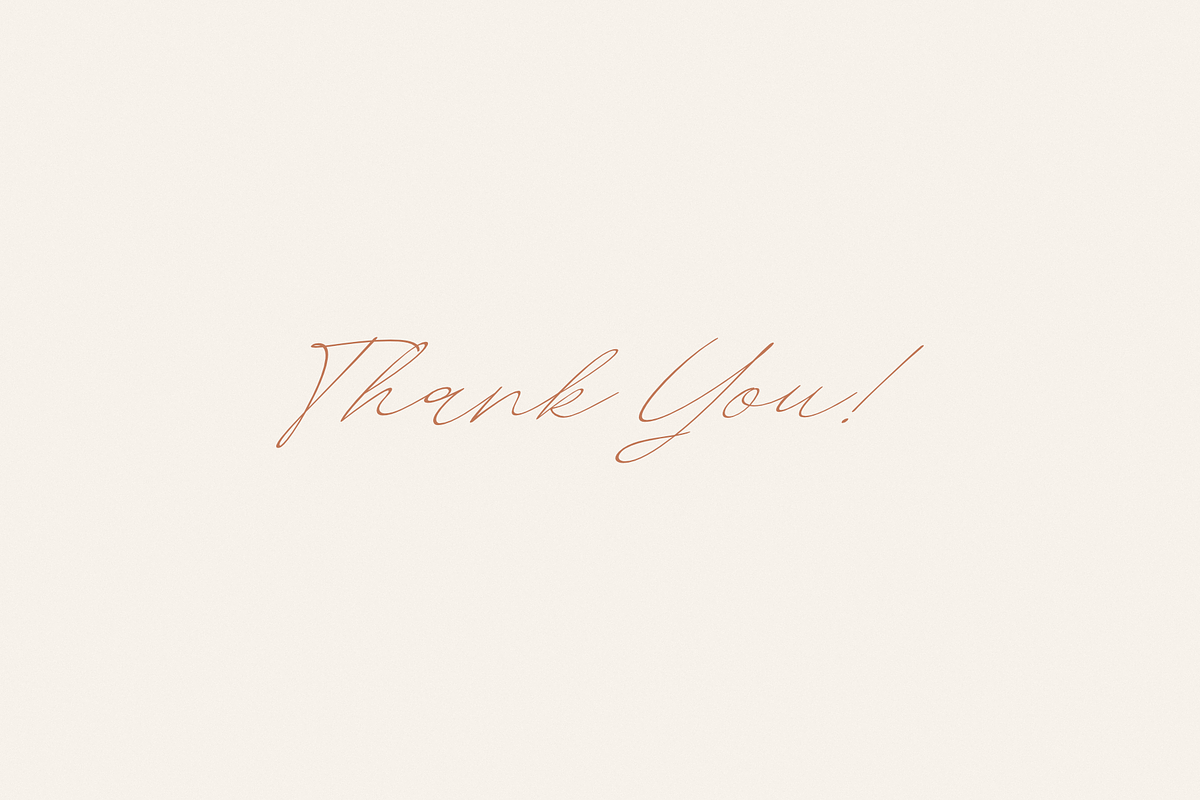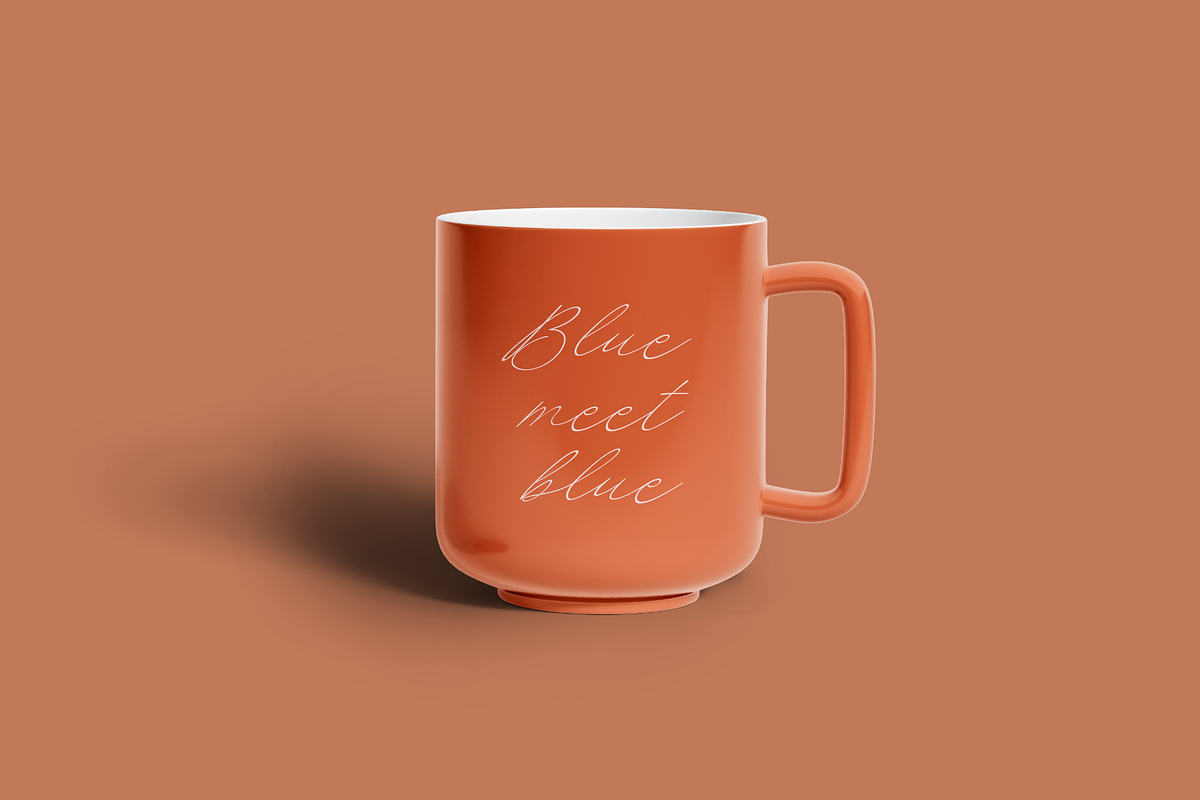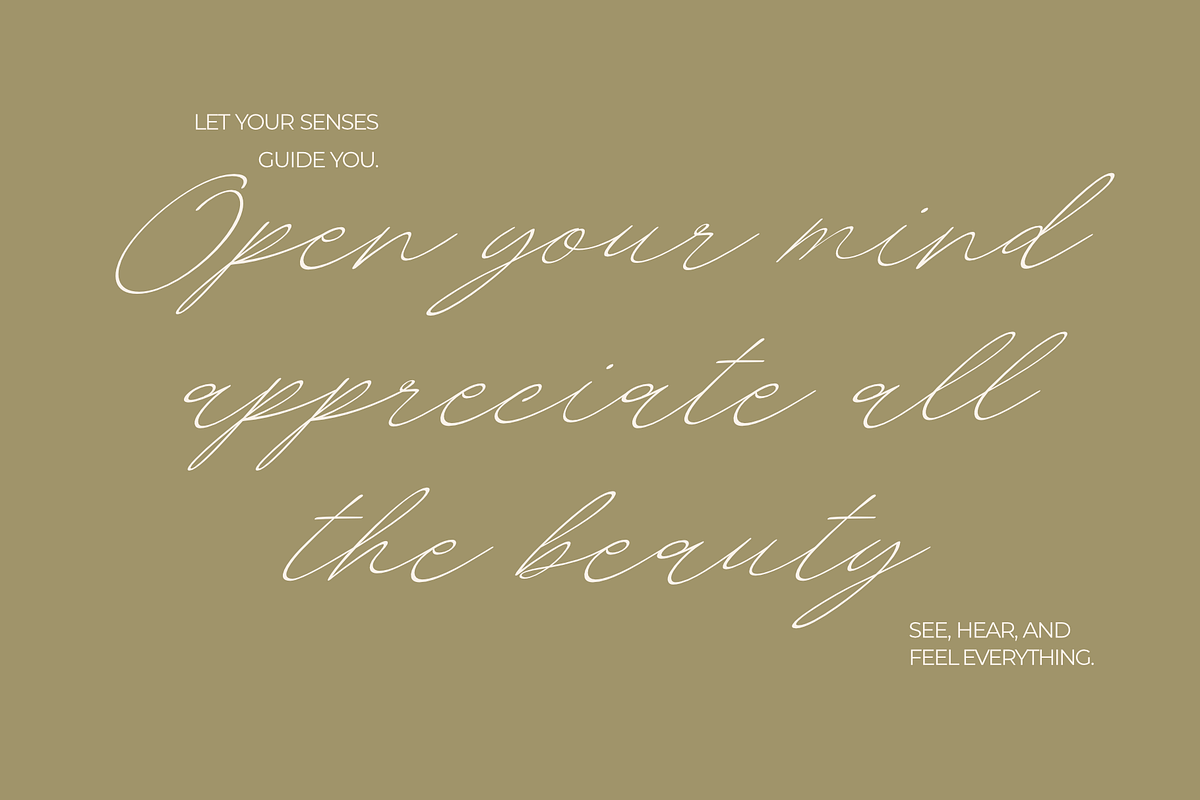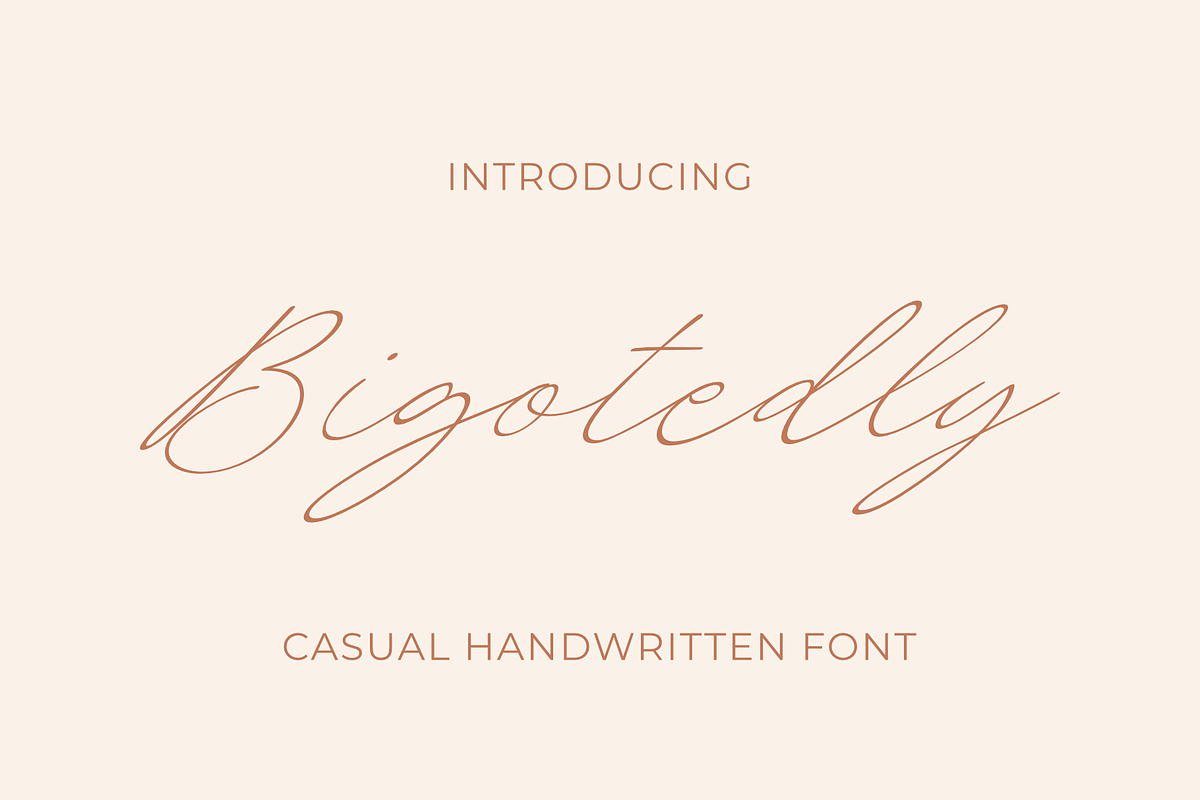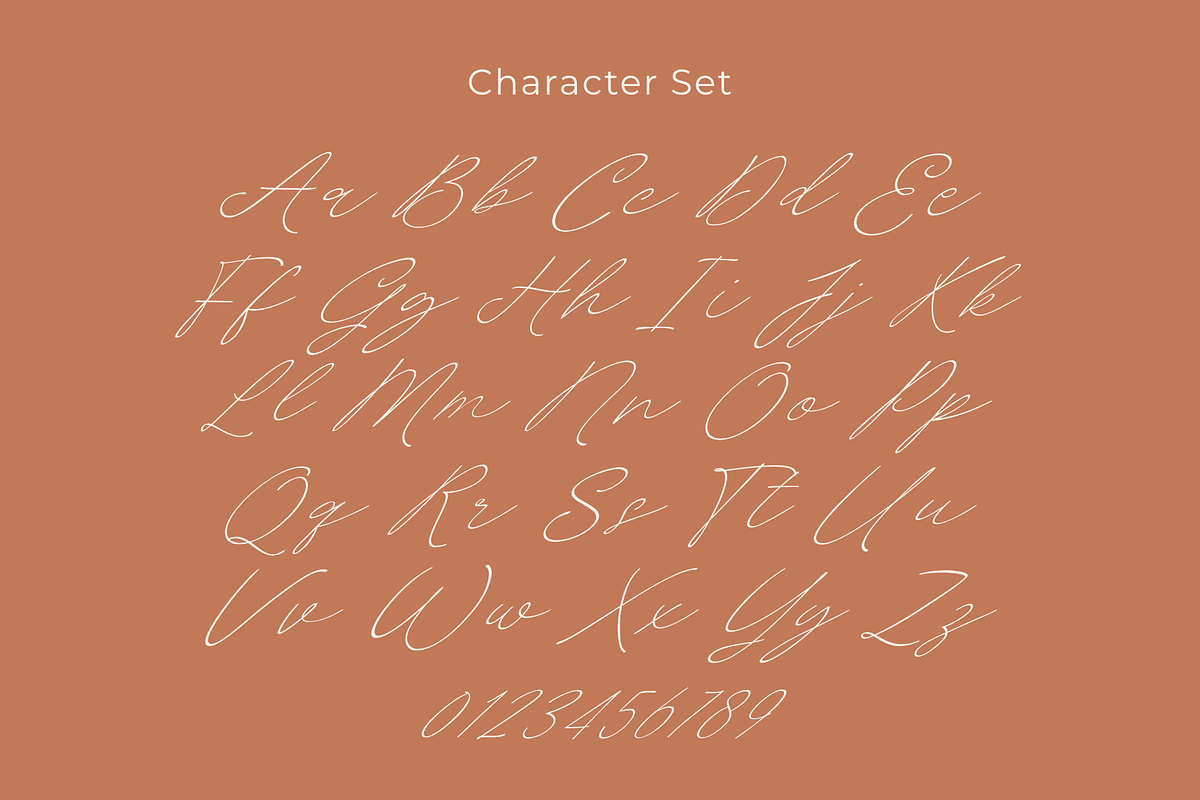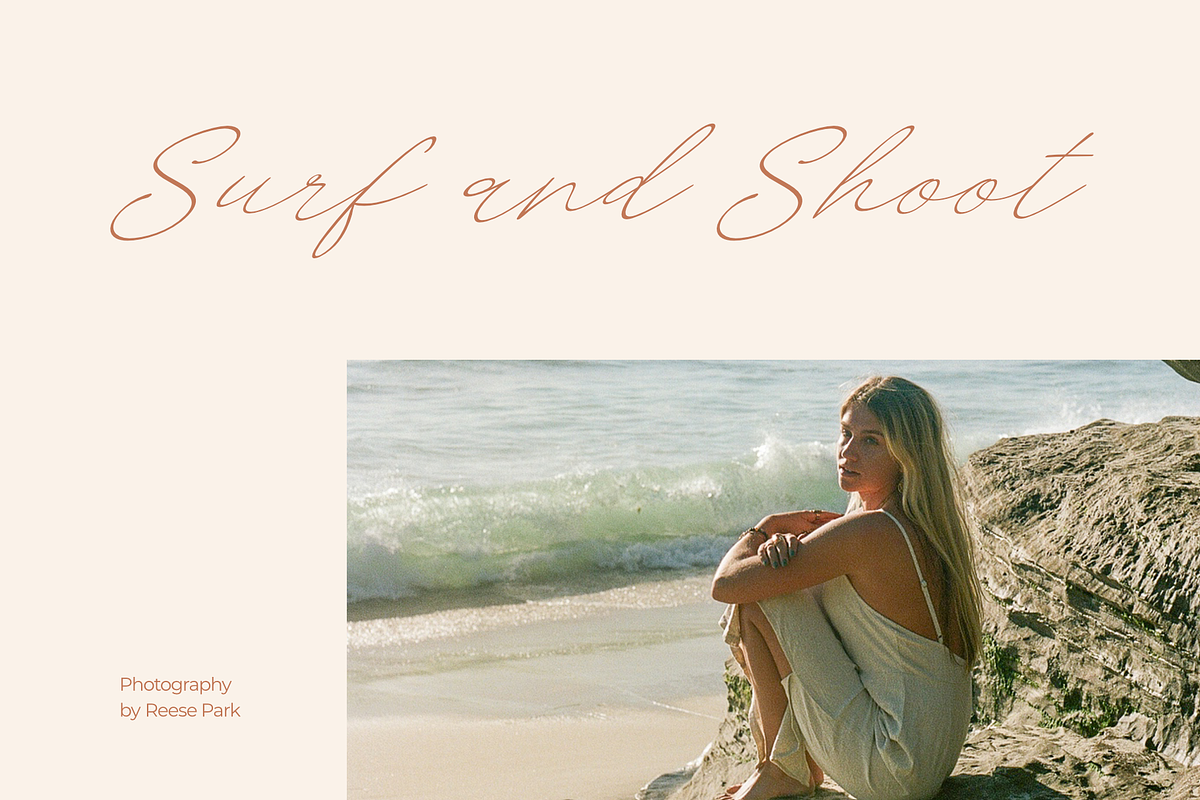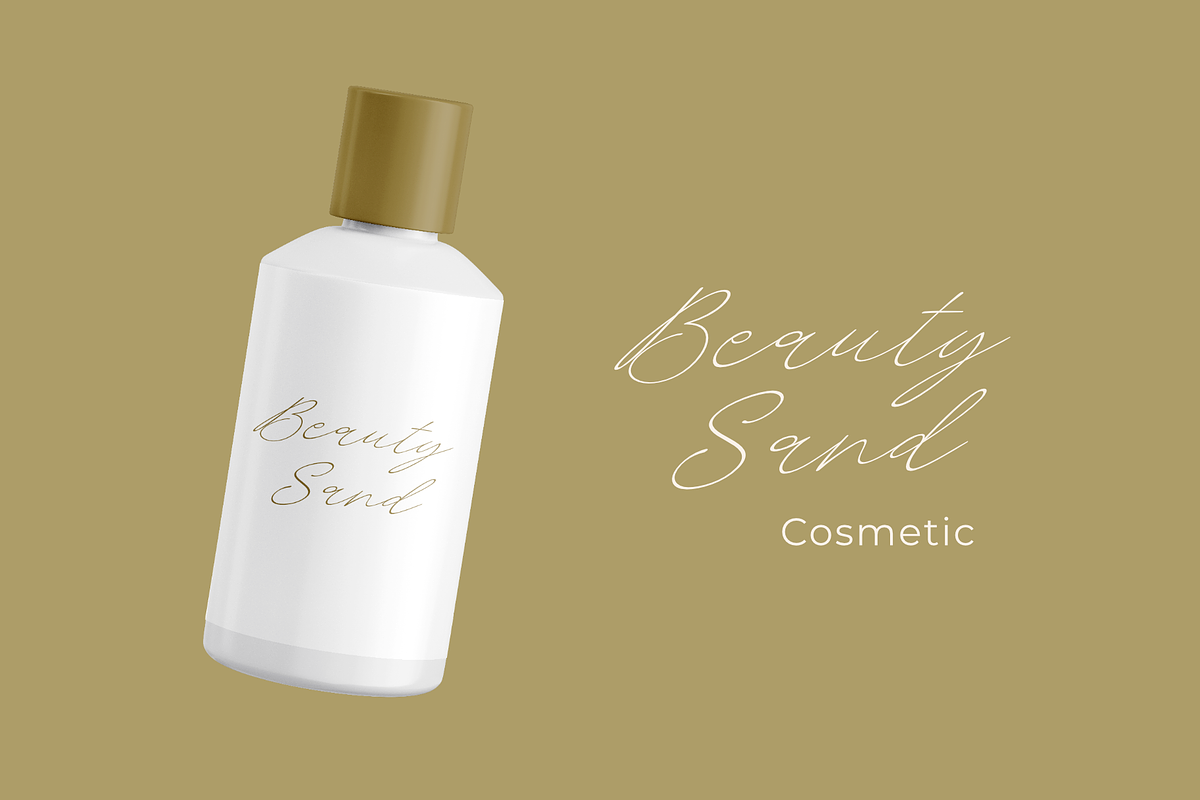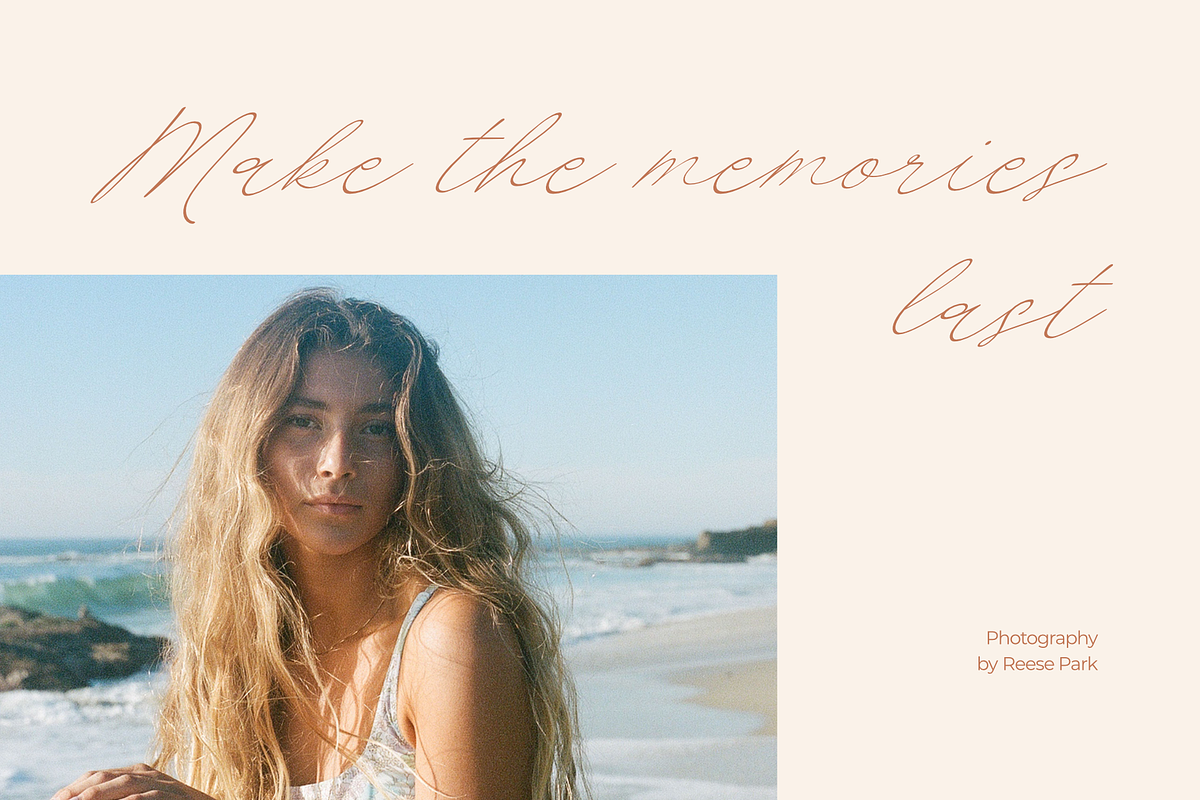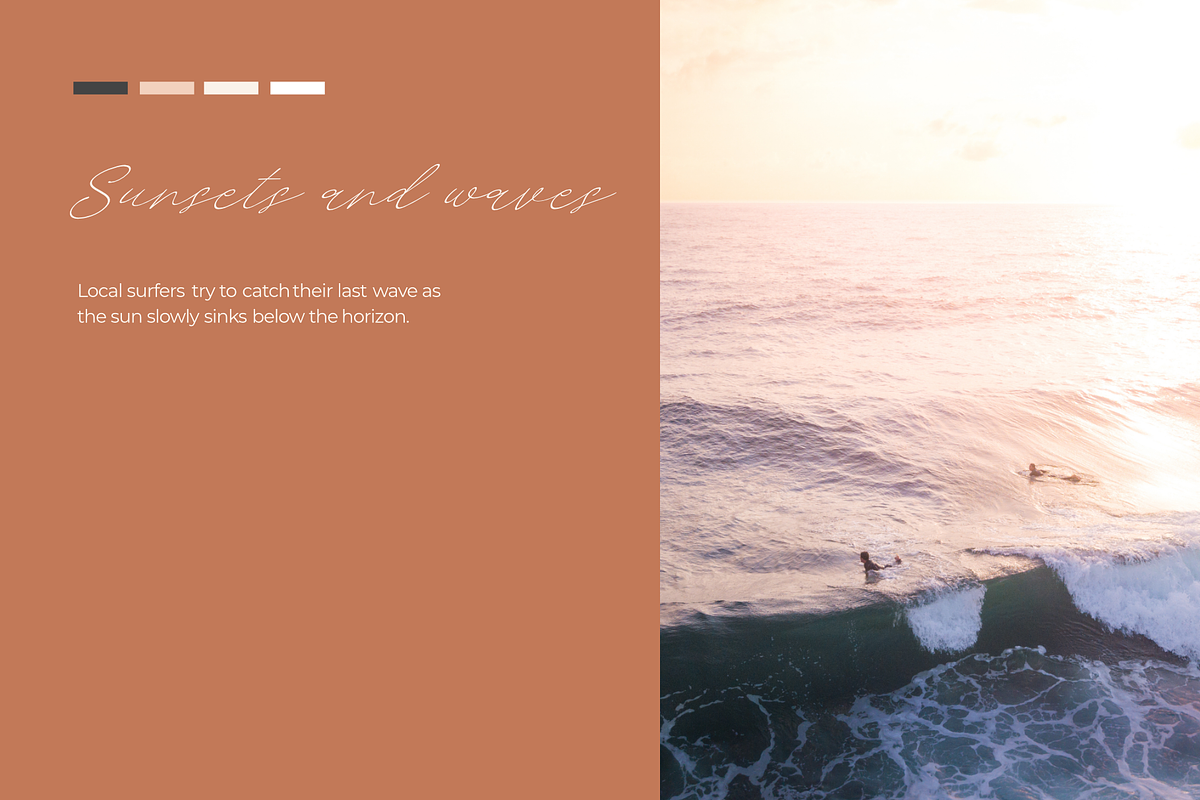
Bigotedly - Casual Handwritten Font
Bigotedly is a casual script and handwritten font. Bigotedly have a chic and simple curves to add charm impression for your design. This Font is perfect for many design needs such as merch, branding, T-shirts, fashion logo, cosmetic, signature logo, wedding invitation, book covers, social media posts, websites, events, and many more.